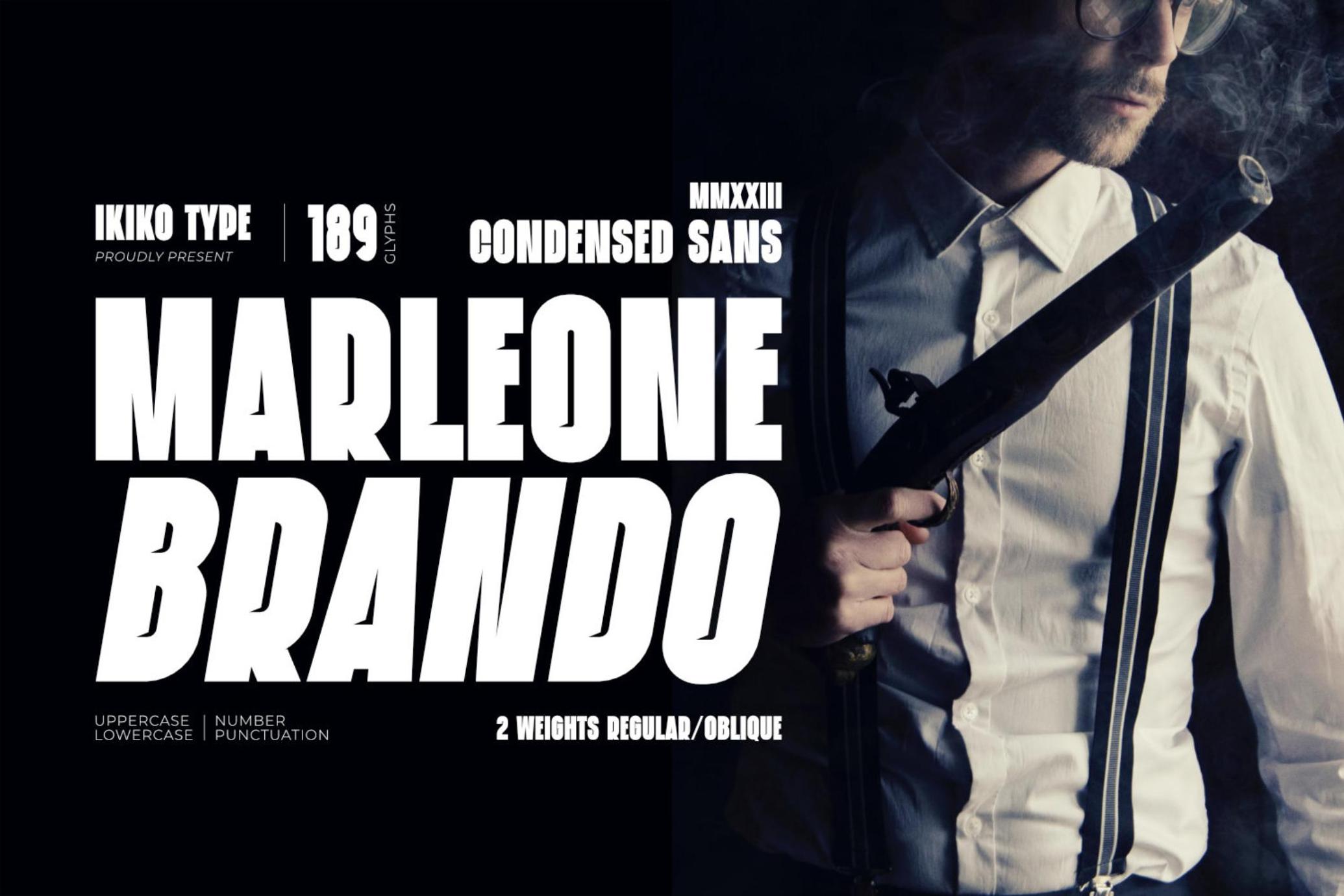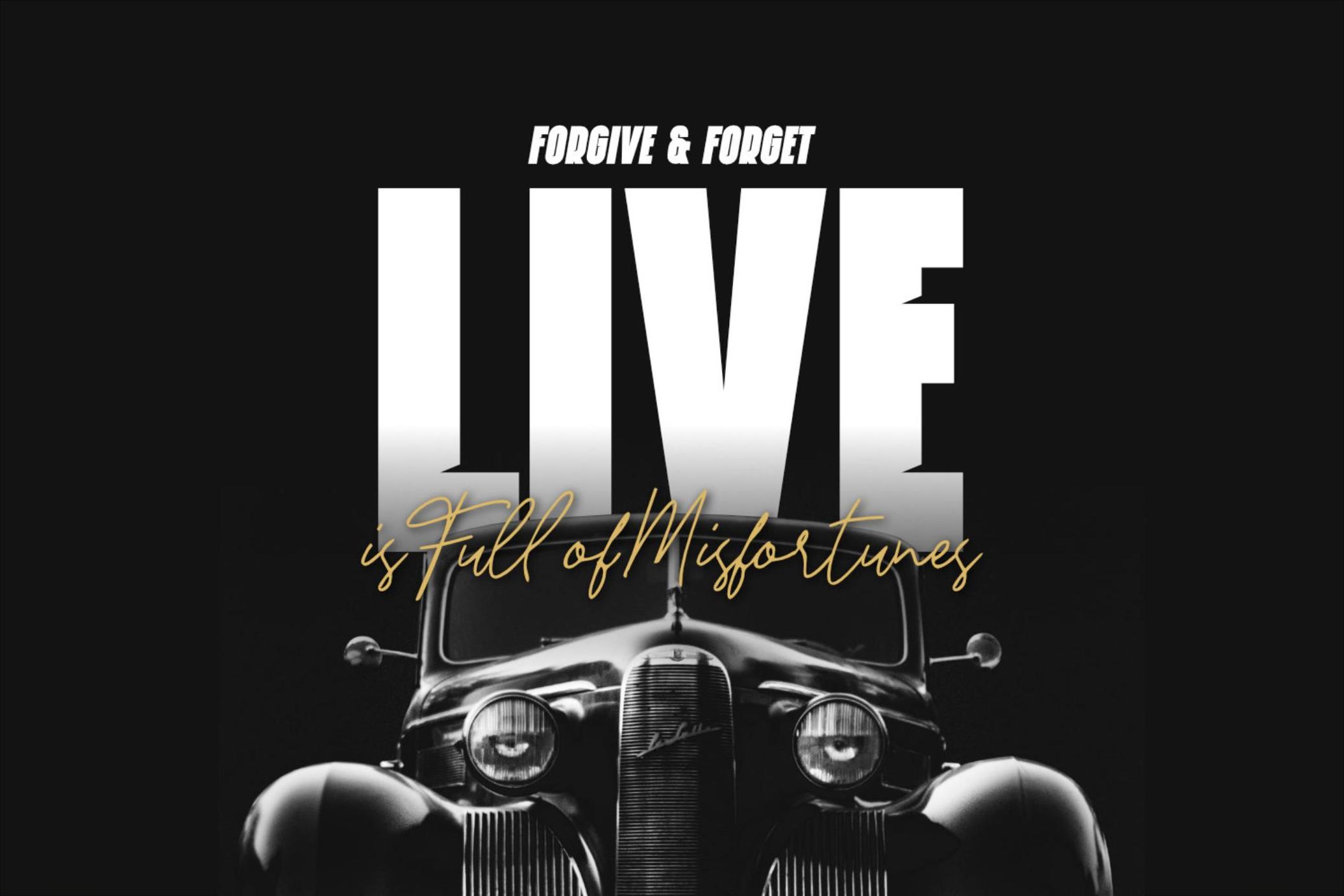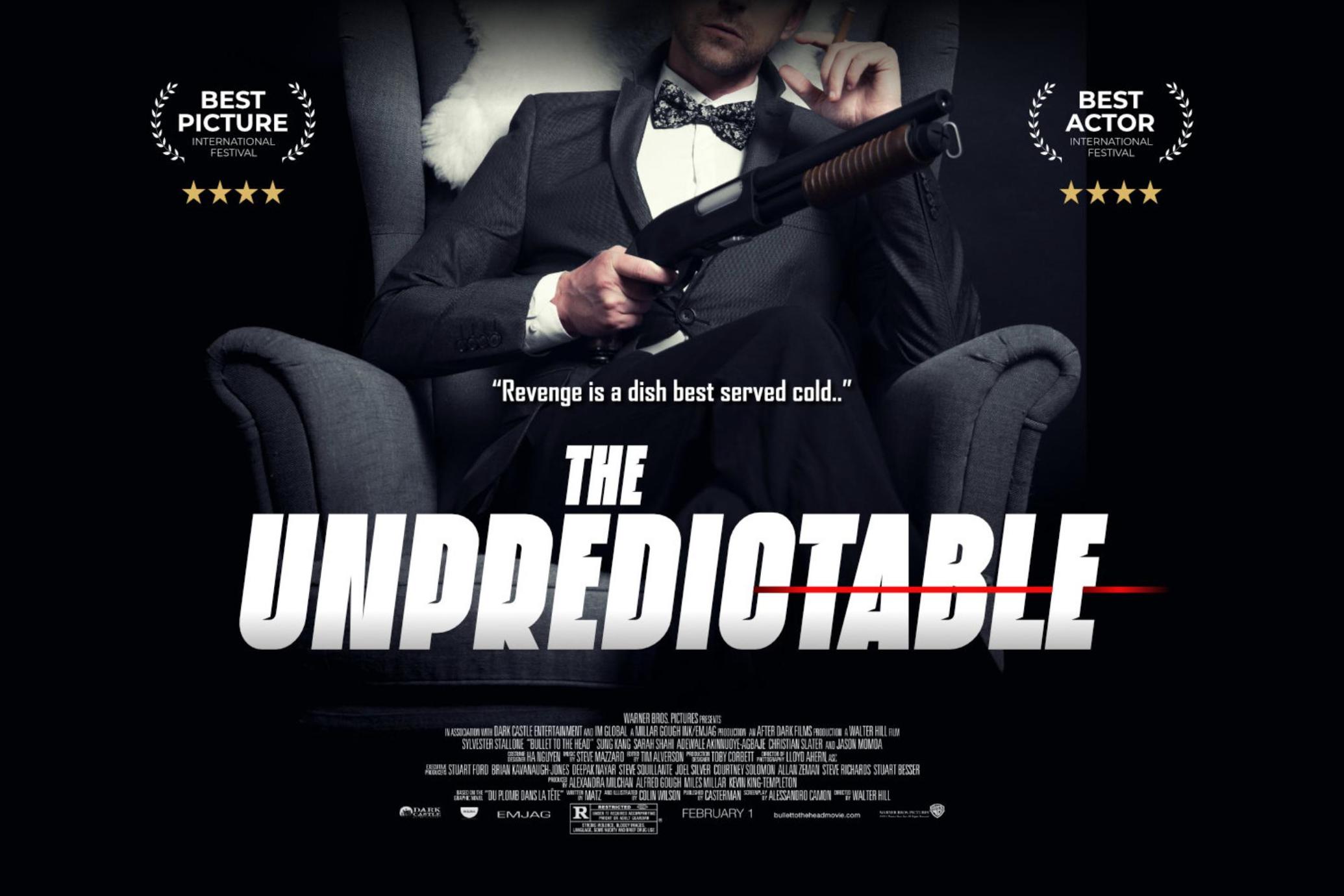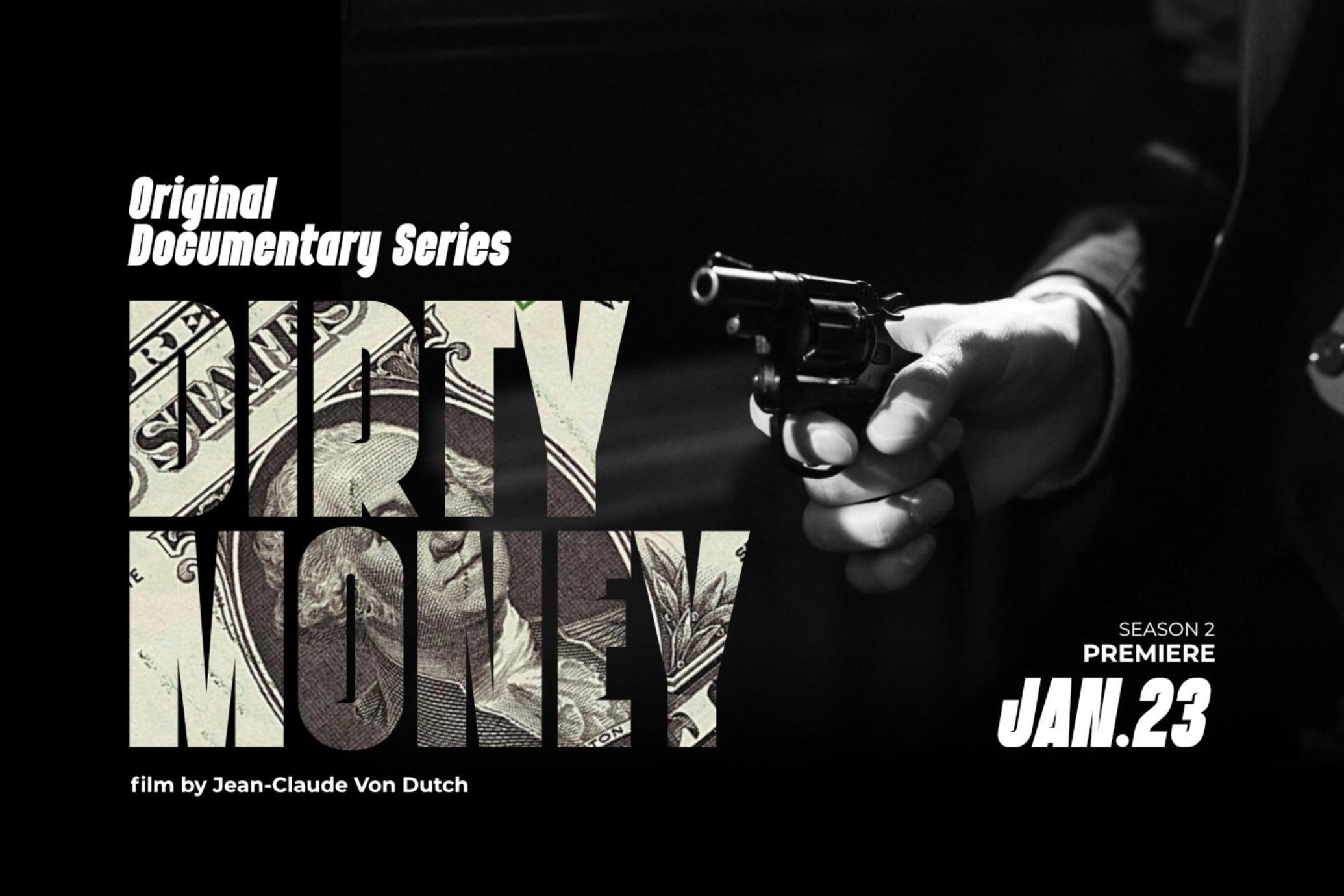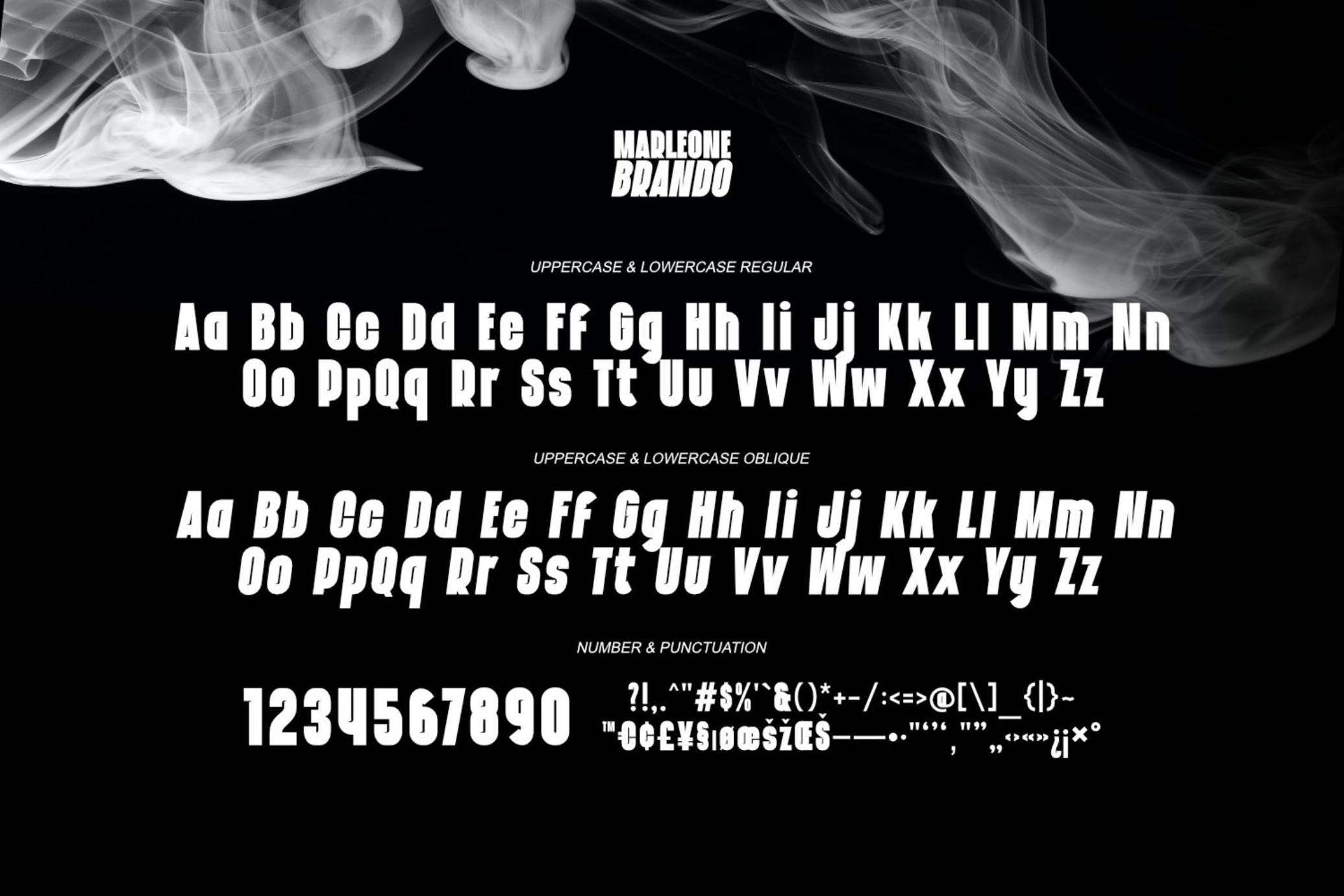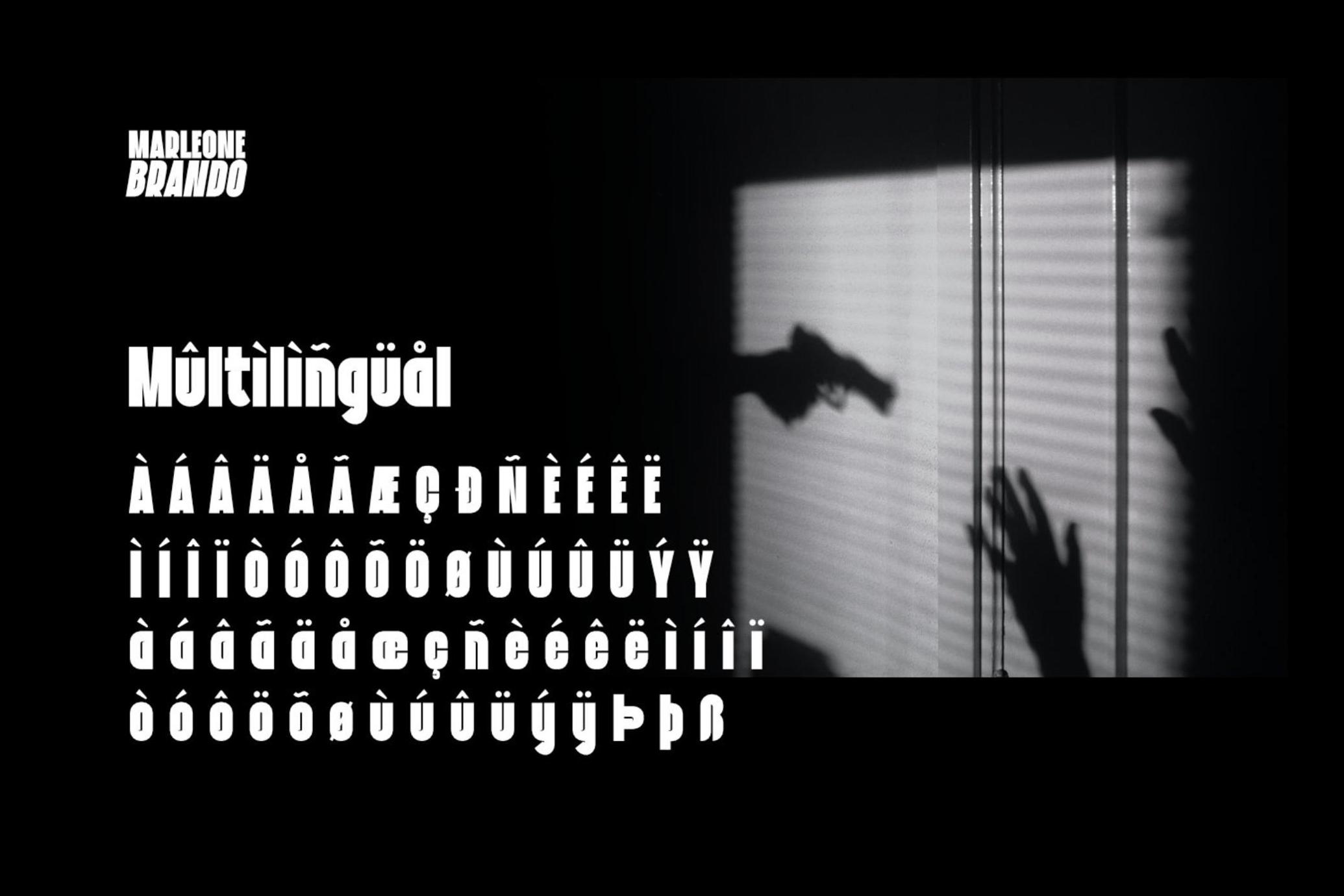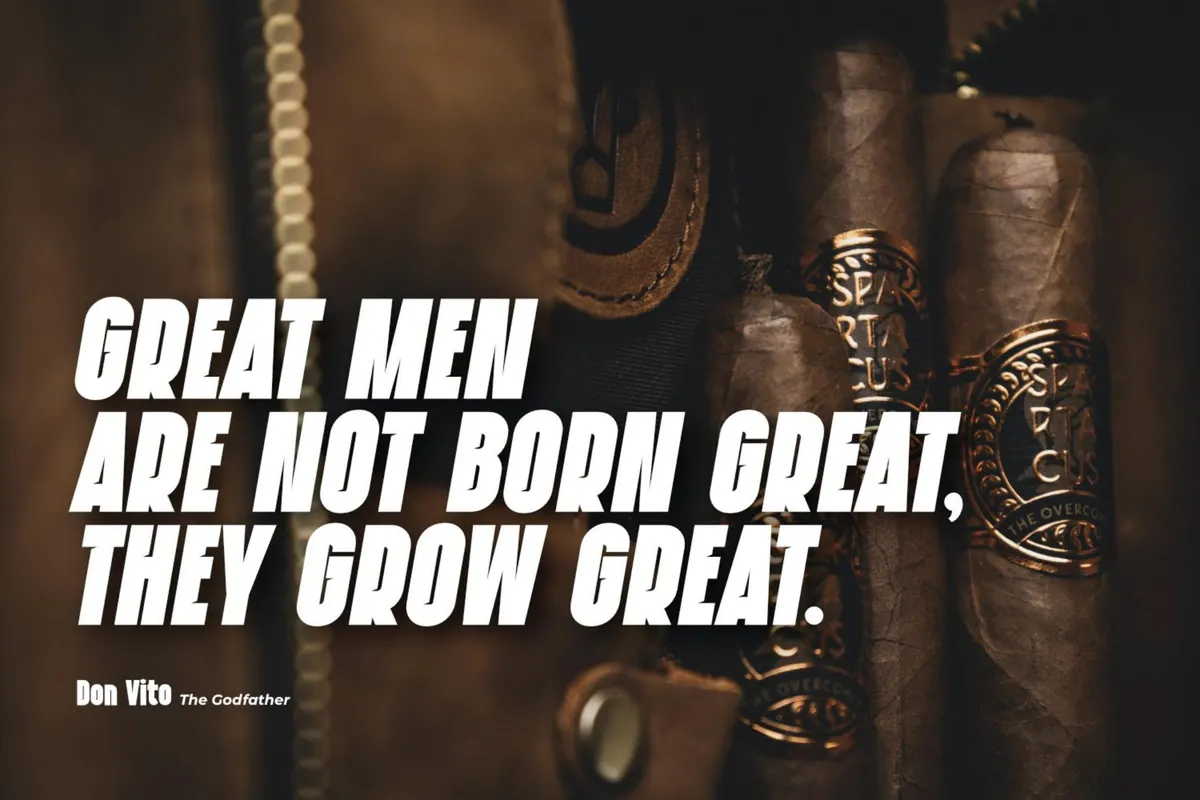
Marleone Brando - Condensed Sans
Marleone Brando is a bold-sturdy font with strong character, inspired by the typeface in mafia films . Marleone Brando has two types of letters, regular and oblique. A simple font with a bold size with shadow line inside, make this font look elegant and classy impression. This typeface is perfect for an elegant logo, branding, movie poster, layout magazine, sport wear, packaging product, quotes, or simply as a stylish text overlay to any background image.
• 2 Weights
• Regular & Oblique
• Number & Punctuation